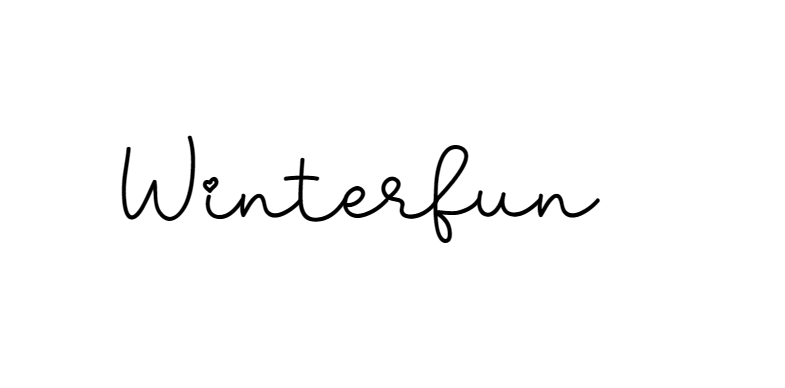
Winterfun Font Preview
Winterfun
Winterfun is a handwritten font designed by Fahrul Arjianto (2019). It has a casual, written-with-a-pen look that makes designs feel personal. You can download it for free and test it with your own words in the preview above.
Winterfun Font Details
- Designer: Fahrul Arjianto
- Glyphs: 157
- Characters: A–Z, a–z and basic punctuation
- Languages: English and German
- OpenType features: Stylistic alternates and one stylistic set
What You Can Type With Winterfun
Winterfun has the full alphabet in upper and lowercase. There are no numbers, so you'll need a second font for dates, prices or phone numbers. Common punctuation such as !, ?, @ and # is included as well. It also has the accented letters you need for German.
How to Use the Alternate Letters in Winterfun
Where Winterfun Works Best
Designers usually reach for fonts like Winterfun when they're making greeting cards, journal pages and friendly social posts. Set it a bit larger than you would a normal text font. Handwriting styles lose their charm once they get too small to read comfortably.
Who designed Winterfun font?
How do I get the alternate letters and swashes in Winterfun?
Does Winterfun support accented letters?
Yes. Winterfun includes the accented letters needed for German, so it works for more than just English.
Does Winterfun have numbers?
No. Winterfun has no numbers, so pair it with another font for dates, prices or phone numbers.